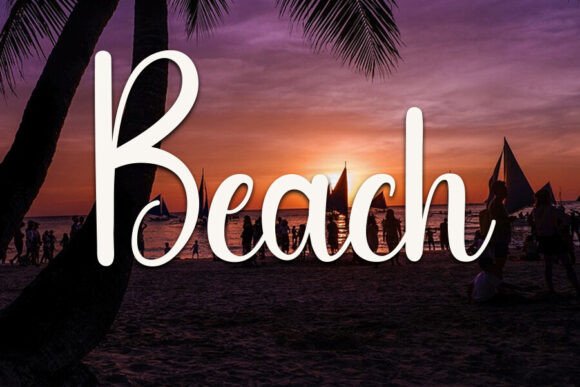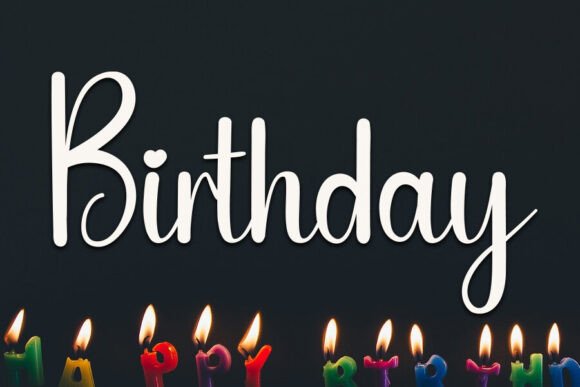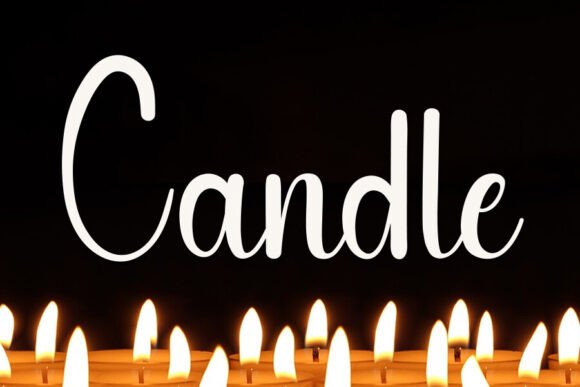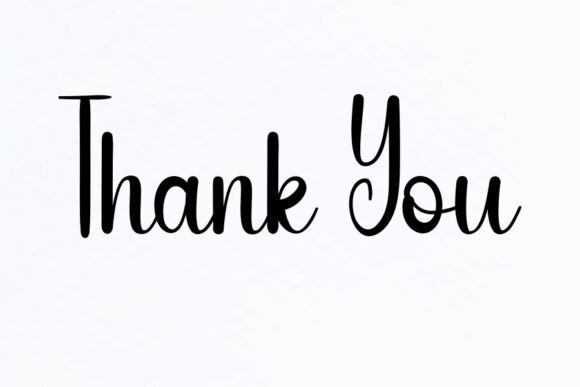
Blessing Font: Elevate Your Designs with a Lovely and Timeless Handwritten Style
Are you a designer or crafter looking for a font that can add a touch of elegance and sophistication to your work? Look no further than the Blessing Font. This beautiful, handwritten font is perfect for creating eye-catching logos, branding, and quotes that will leave a lasting impression on your audience.
What Makes Blessing Font So Special?
Blessing Font is a unique and lovely handwritten font that boasts a timeless quality. Its elegant and flowing script is perfect for a wide range of design applications, from logos and branding to quotes and social media graphics. Every letter has a unique and beautiful touch, which will make your design come alive and stand out from the crowd.
Key Features of Blessing Font
- Handwritten style: Blessing Font has a beautiful, handwritten style that adds a personal touch to your designs.
- Unique letterforms: Every letter in Blessing Font has a unique and beautiful touch, making your designs truly one-of-a-kind.
- Elegant and sophisticated: This font is perfect for creating elegant and sophisticated designs that will appeal to a wide range of audiences.
- Timeless quality: Blessing Font has a timeless quality that ensures your designs will remain stylish and relevant for years to come.
- Versatile: This font is perfect for a wide range of design applications, from logos and branding to quotes and social media graphics.
Why Choose Blessing Font?
There are many fonts to choose from, but Blessing Font stands out from the rest. Here are just a few reasons why:
- Easy to read: Despite its elegant and flowing script, Blessing Font is easy to read, making it perfect for body text and captions.
- Highly legible: The unique letterforms in Blessing Font are highly legible, even at small sizes.
- Perfect for branding: This font is perfect for creating consistent branding across all your marketing materials.
- Supports multiple languages: Blessing Font supports multiple languages, making it a great choice for designers and businesses with a global audience.
How to Use Blessing Font in Your Designs
Using Blessing Font in your designs is easy. Here are a few tips to get you started:
- Pair it with a bold font: Pair Blessing Font with a bold font for a striking contrast that will make your designs pop.
- Use it for headings: Use Blessing Font for headings and titles to add a touch of elegance and sophistication to your designs.
- Add some flair: Use Blessing Font to add some flair to your designs, such as in quotes, captions, and social media graphics.
- Keep it simple: Don’t be afraid to keep it simple and let the beauty of Blessing Font shine through.
In conclusion, Blessing Font is a lovely and timeless handwritten font that is perfect for designers and crafters looking to add a touch of elegance and sophistication to their work. With its unique letterforms, elegant script, and versatile design, Blessing Font is sure to become a favorite in your font collection. So why wait? Download Blessing Font today and start creating stunning designs that will leave a lasting impression on your audience!